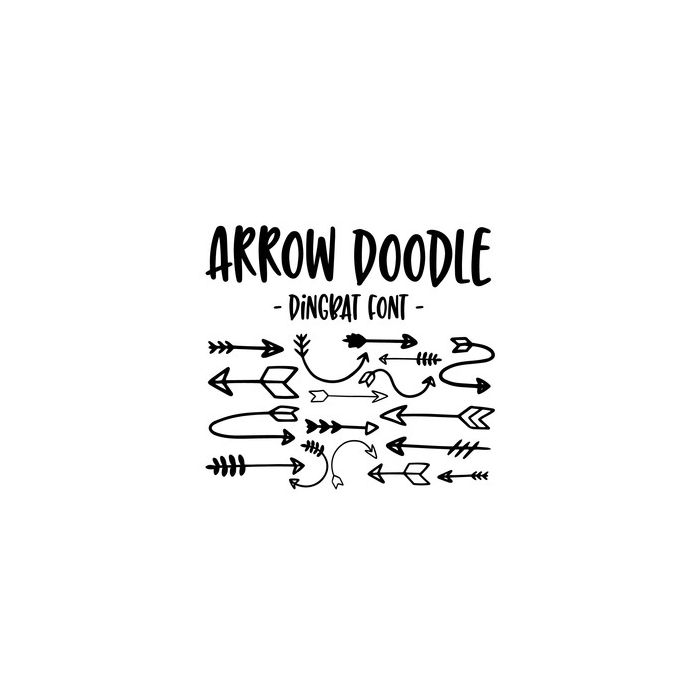
Arrow Doodle Dingbat Font. Hand drawn font, includes 26 arrows. For more design ideas, coordinating designs & products and inspiration, please visit my blog http://www.sarahhurleyblog.com